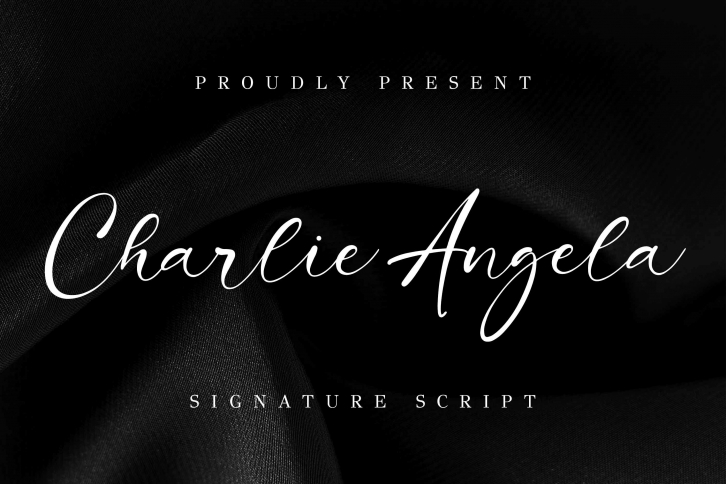
Charlie Angela is a gorgeous font that was realeased on October 5, 2020. The font can be used in many style contexts and design environments. Perfect for invitations, magazines, websites, logos, and more! It was designed by Almarkha Type and the file size is 4.89 MB. Thanks for checking out this font!